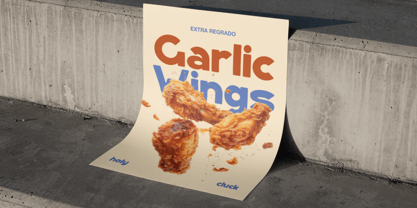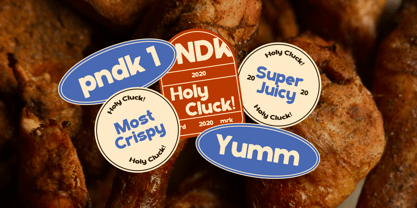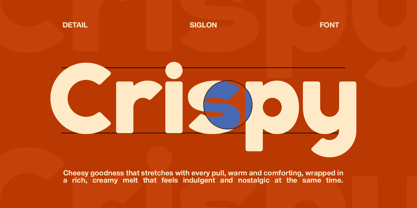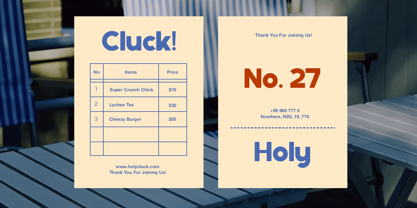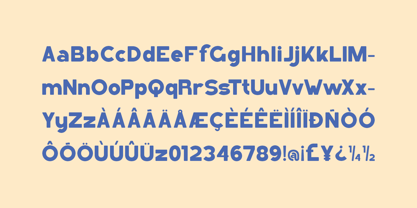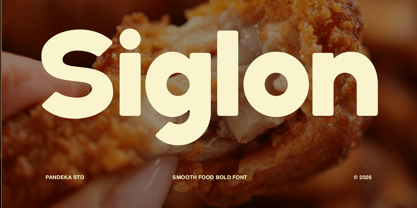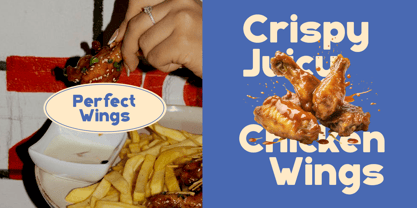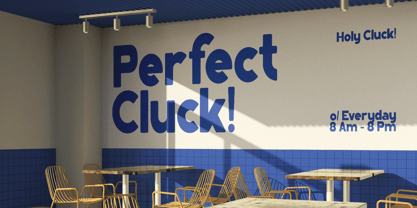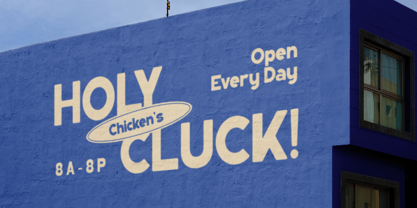
Siglon
Siglon is a bold food font designed to bring energy, flavor, and strong visual impact to food-related branding. Featuring thick rounded letterforms and a playful modern style, this font is perfect for fast food brands, fried chicken packaging, snack products, restaurant identities, menu boards, food promotions, signage, posters, and social media campaigns. Its bold appearance helps attract attention instantly while maintaining excellent readability across various design applications.
Created for branding and display purposes, Siglon works beautifully for logos, packaging, product labels, advertising materials, and promotional graphics. The friendly yet powerful character makes it ideal for businesses that want to create a memorable and appetizing brand presence. Whether used for restaurants, food packaging, culinary promotions, or modern food businesses, Siglon delivers a fun and impactful visual experience.